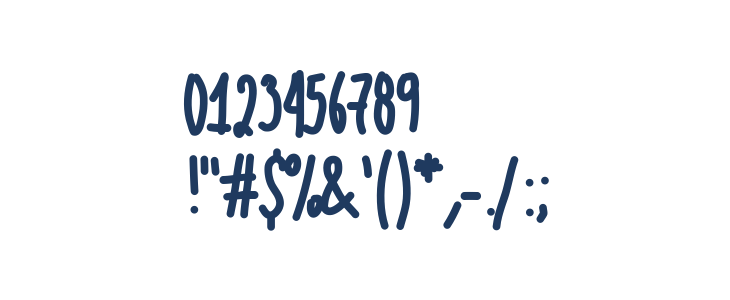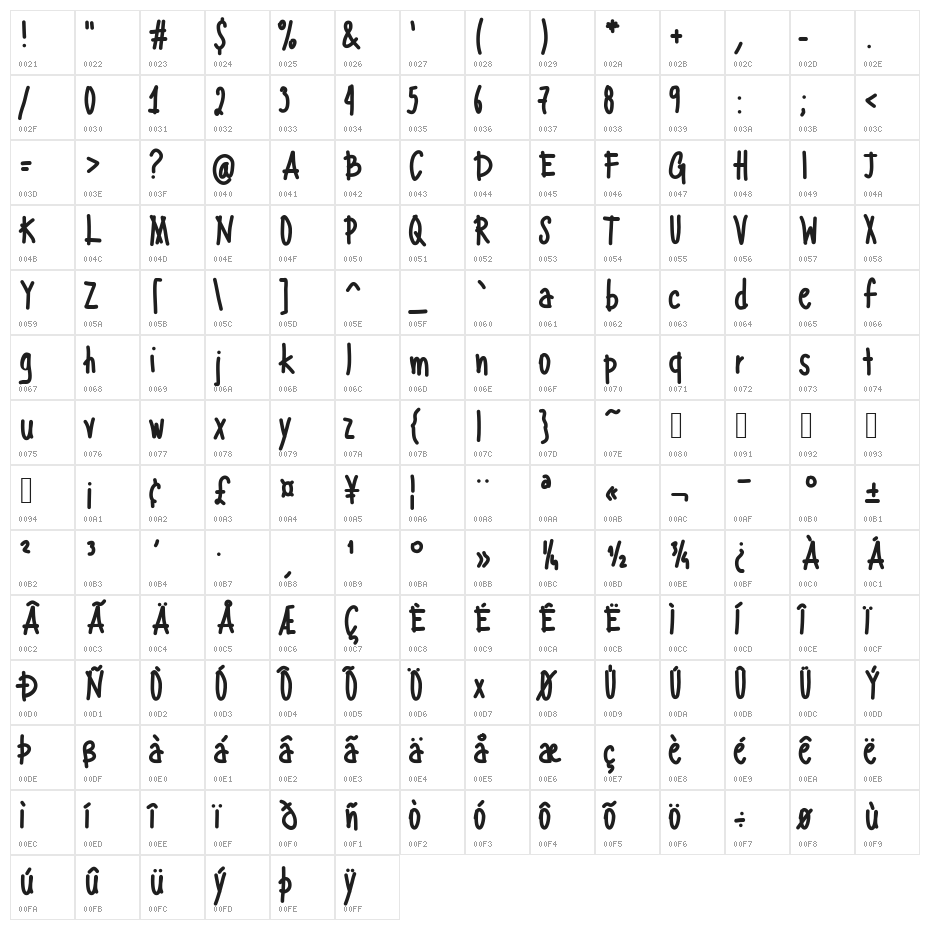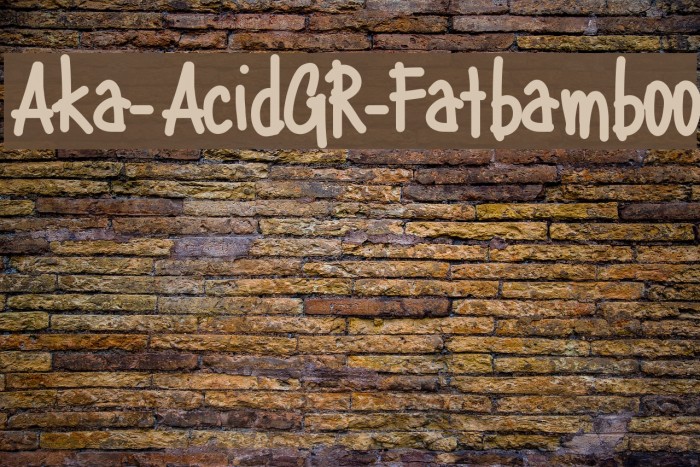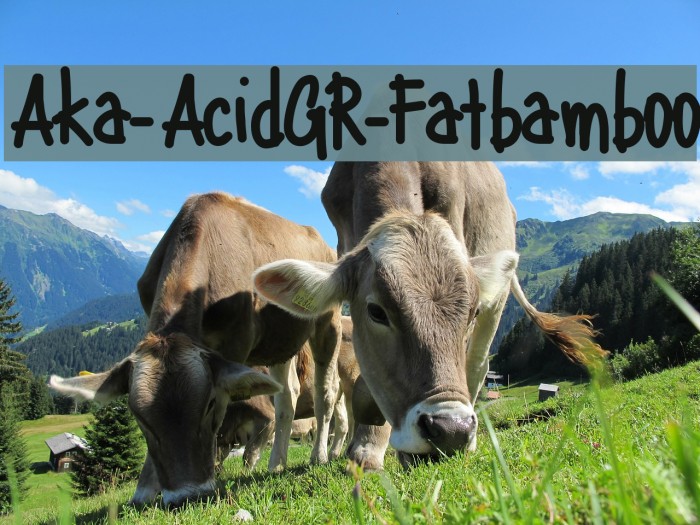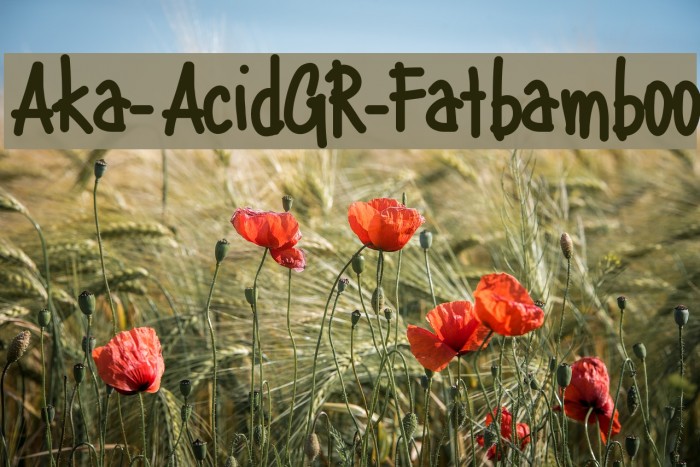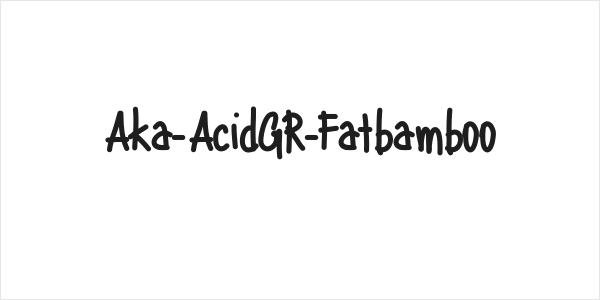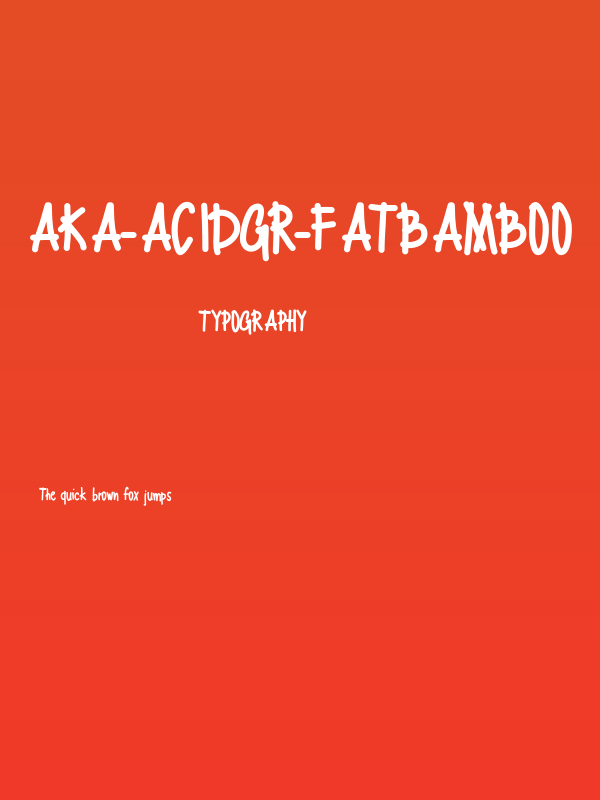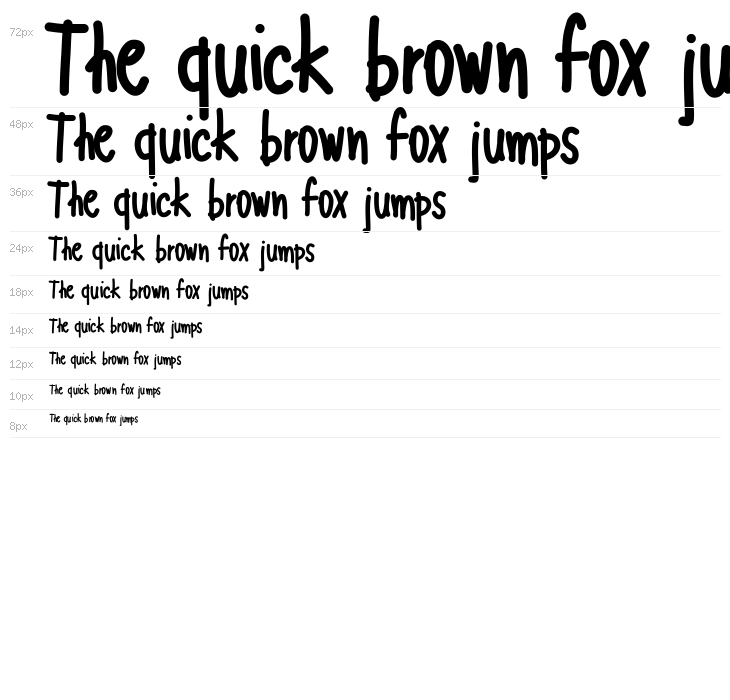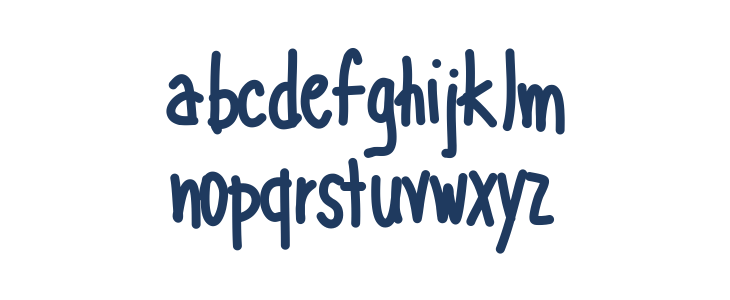
Aka-AcidGR-Fatbamboo Font
Aka-AcidGR-Fatbamboo Description
This font features a playful and bold handwritten style, characterized by thick, rounded strokes and a casual, informal appearance. The letters are slightly irregular, adding a whimsical touch to the overall design. The uppercase and lowercase letters maintain a consistent weight, giving the font a cohesive look. The numbers and special characters follow the same playful aesthetic, making them suitable for creative and fun projects. The font's boldness ensures high readability, while its unique style makes it stand out in various applications.
| Proposed Projects | Ideal for children's books, playful branding, posters, and social media graphics. |